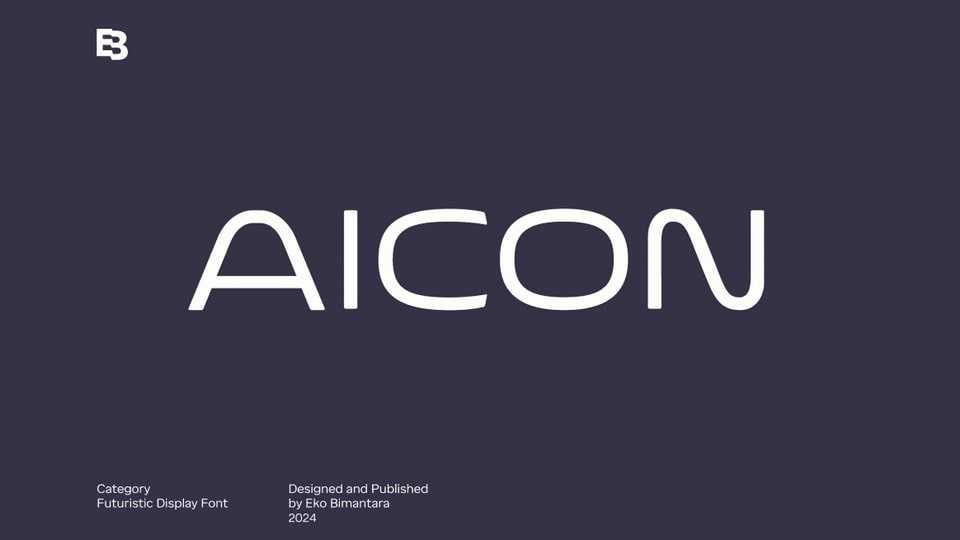
Aicon Font Family › Fontesk
Download Aicon font, a sleek, modern geometric typeface that embodies minimalism and futuristic design, crafted with clean, precise lines and perfectly balanced shapes.